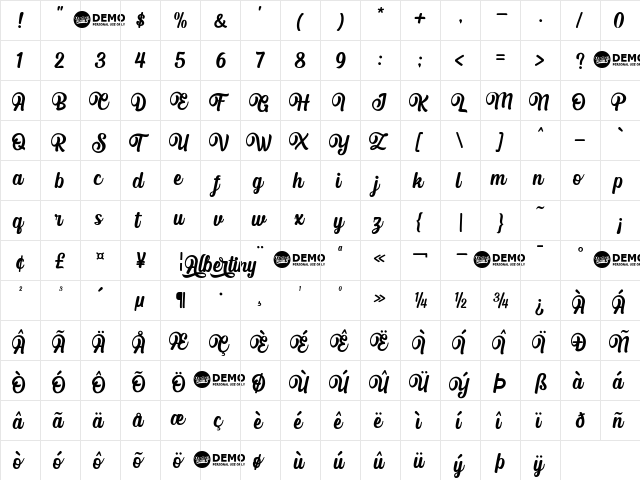
Albertiny Personal Use Regular
| Designer | Nur Faidin - Nurf Designs |
Design Context for Albertiny Personal Use Typeface
Albertiny Personal Use is a composed and adaptable typeface that performs quietly and consistently across a wide range of design contexts.